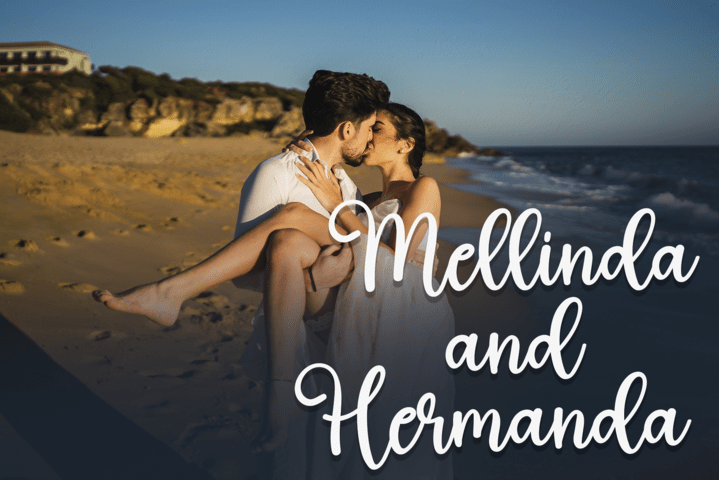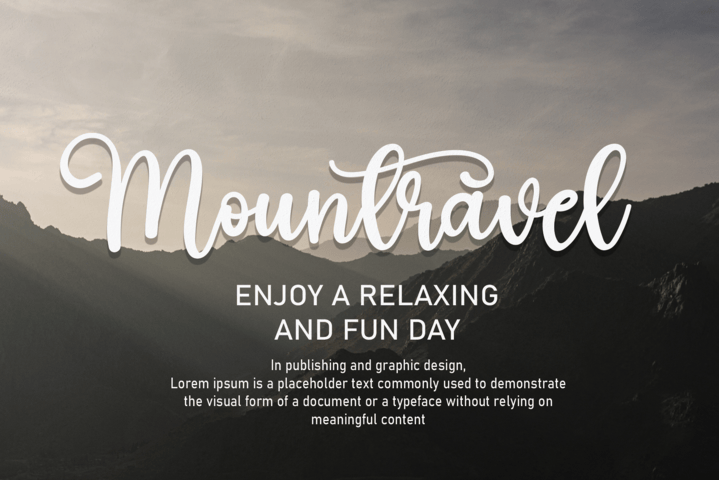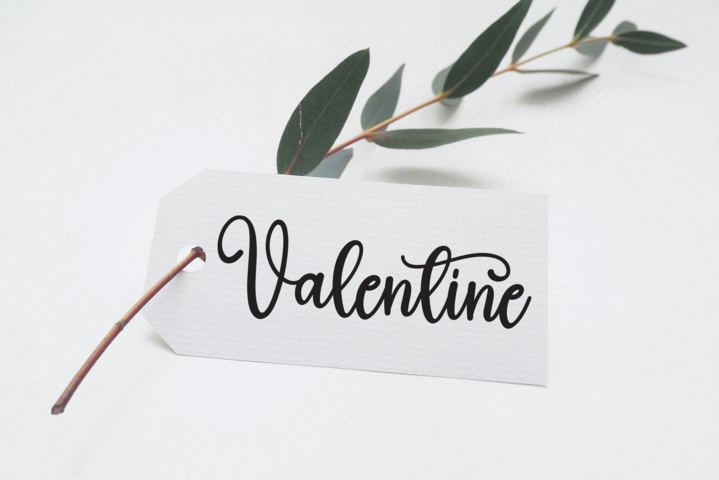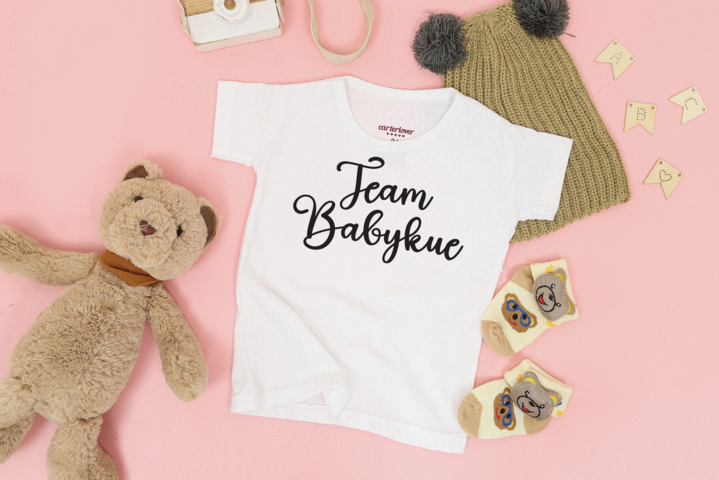
Christmas Gnome Script Font
This is a beautiful script font perfect for wall displays, wedding invitations, social media posts, logos, advertisements, product packaging, product designs, labels, photography, watermarks, invitations, stationery, and any project that requires a handwritten touch.
special creative products for you, our products will give you an extraordinary experience. the latest style letters are perfect for wall displays, wedding invitations, social media post logos, advertisements, product packaging, product designs, labels, photography, watermarks, invitations, stationery, and any project that requires taste handwriting.